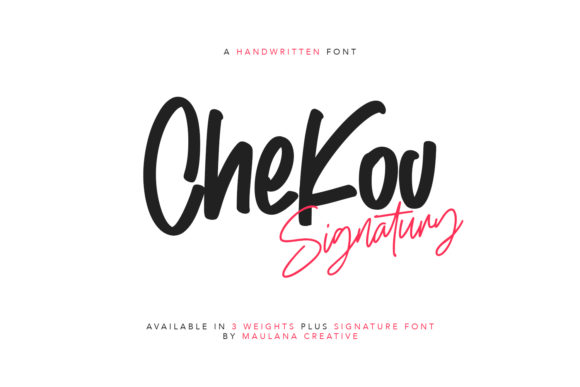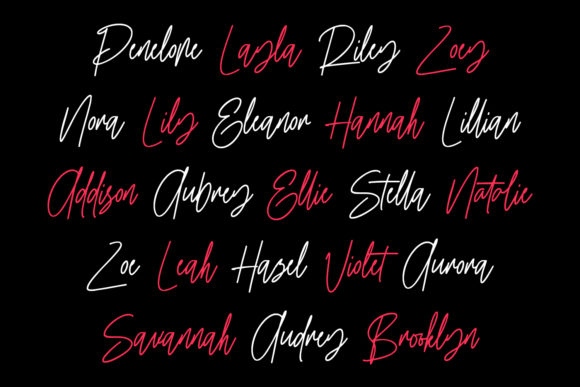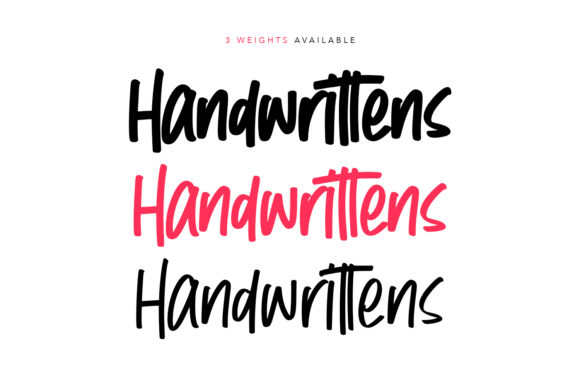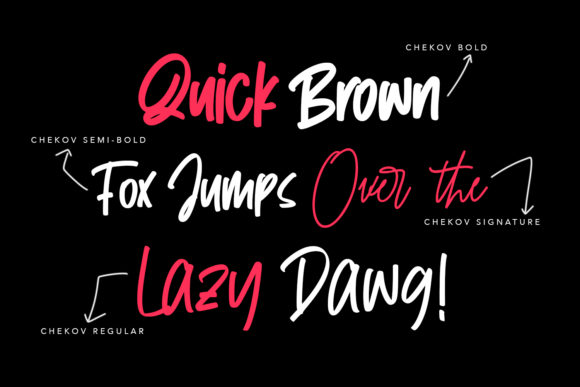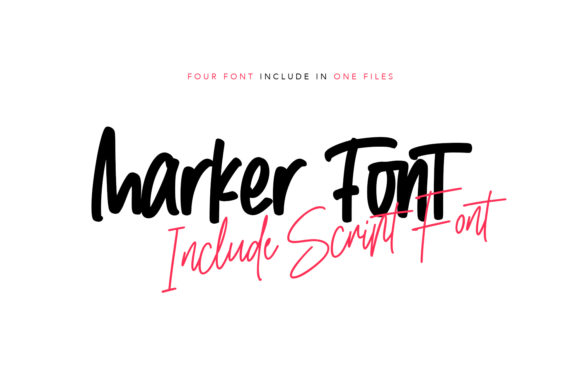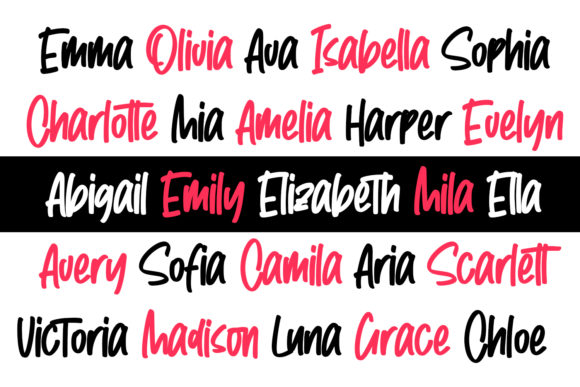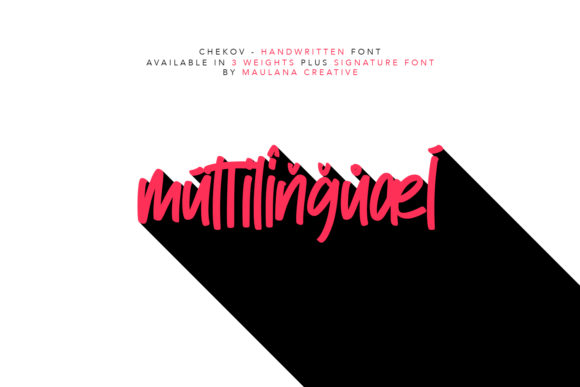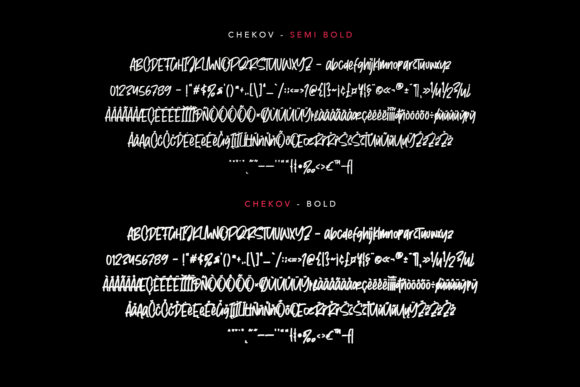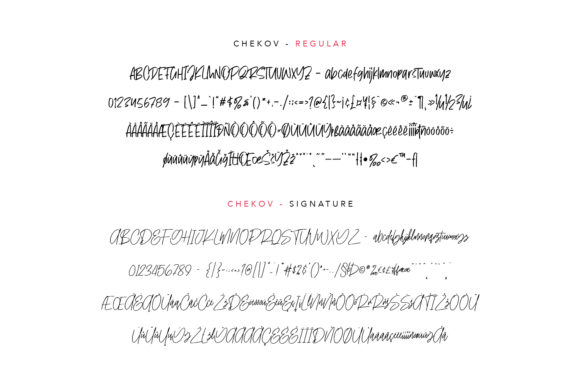
Chekov Font
About Chekov Font
Chekov is a bold and simple handwritten font, designed with the help of a brush pen. Add it to your most creative ideas and notice how it makes them come alive!